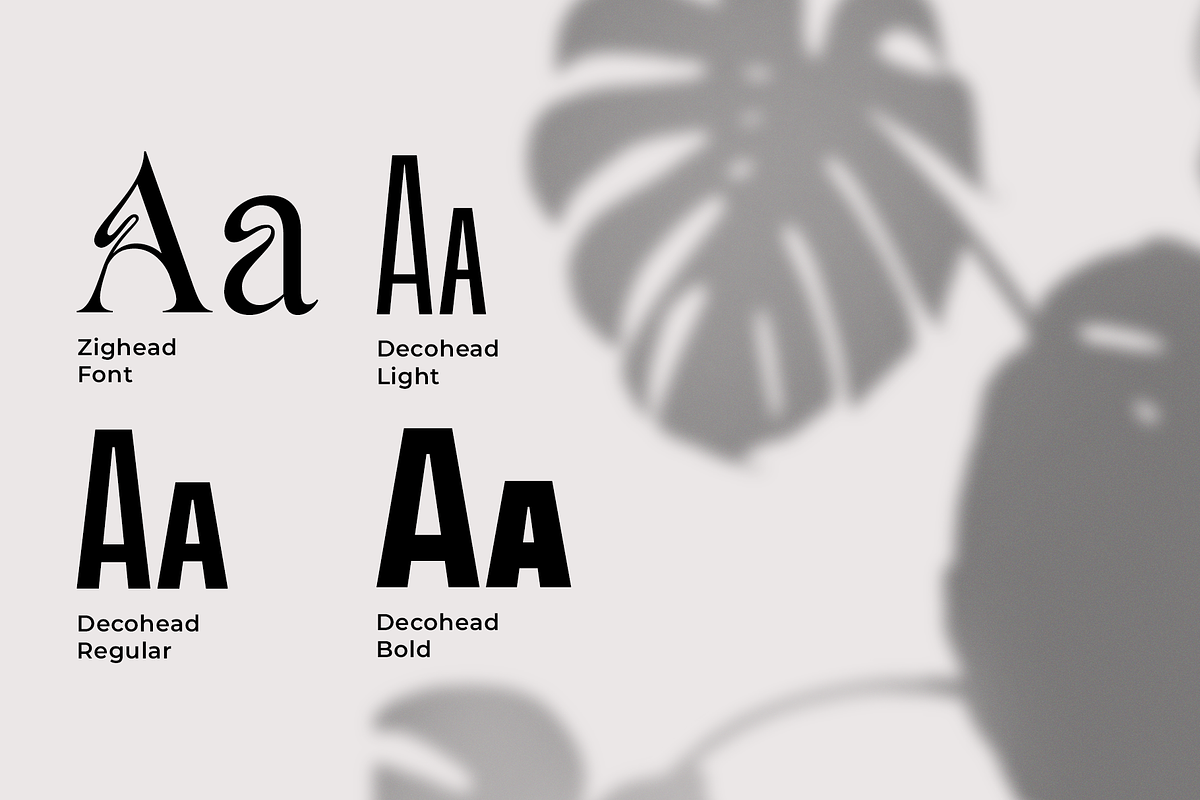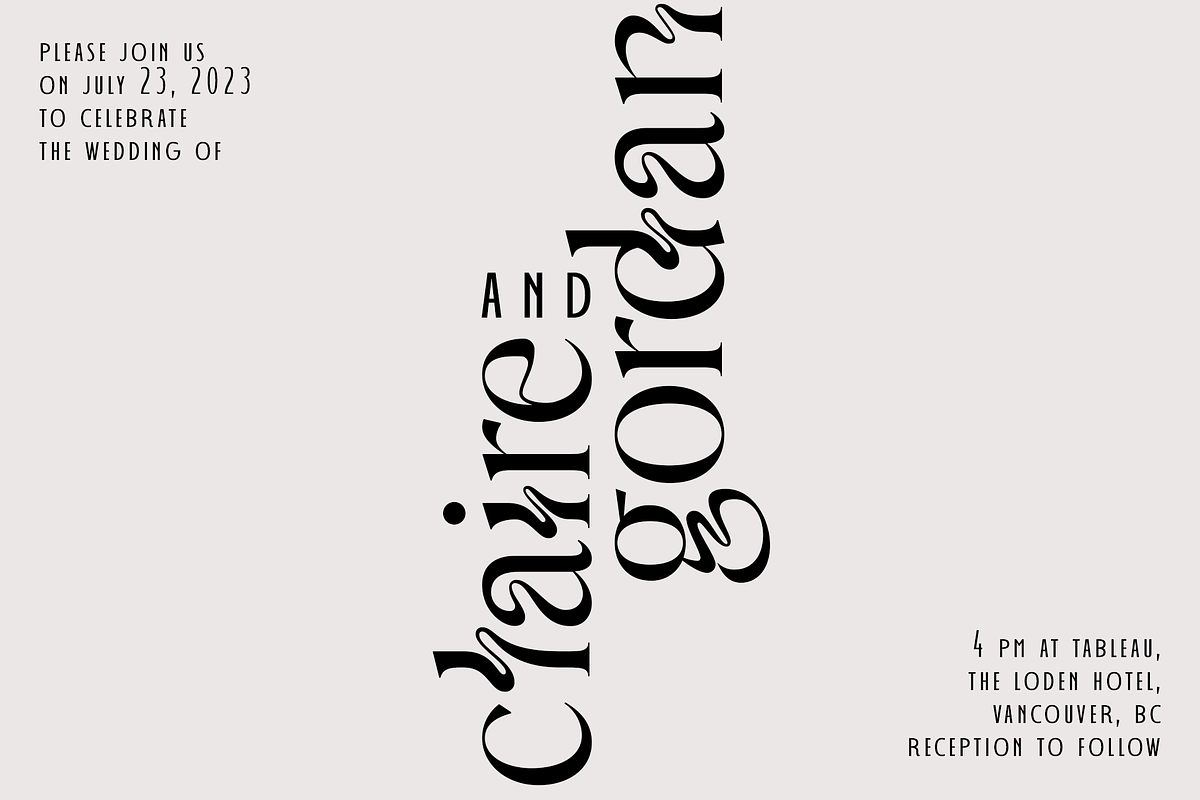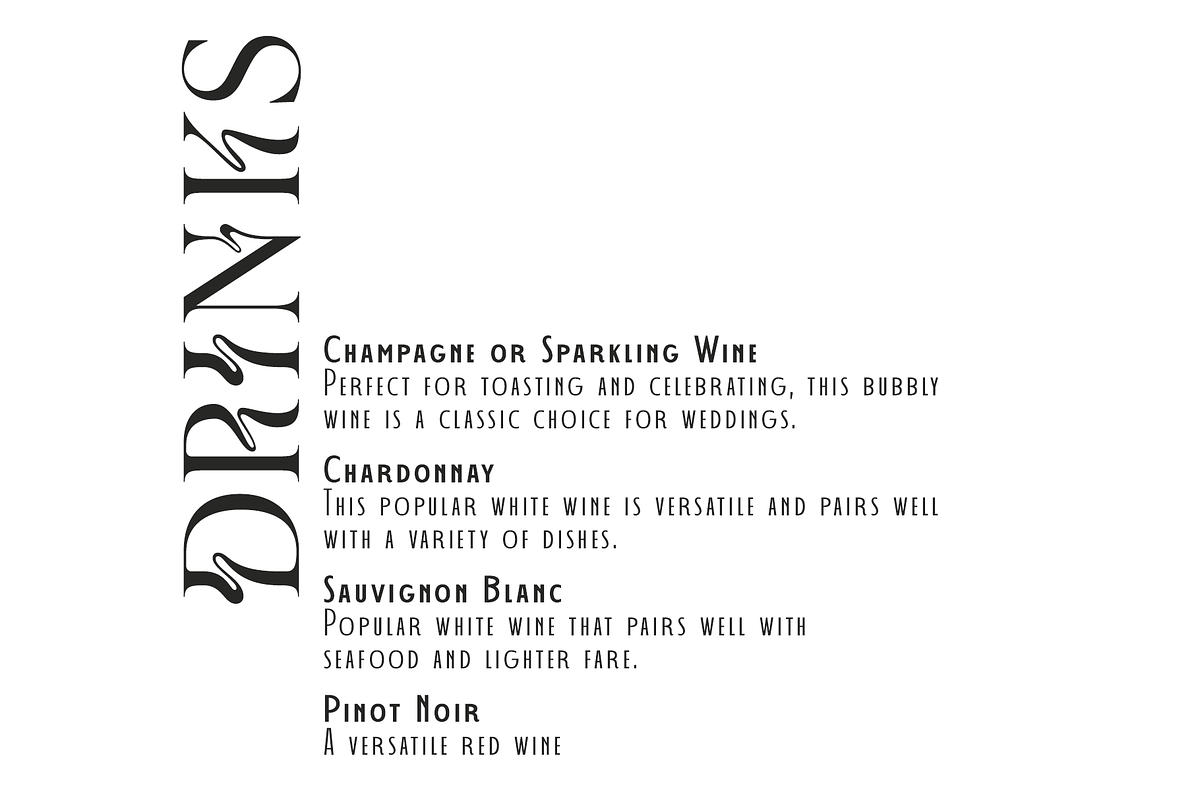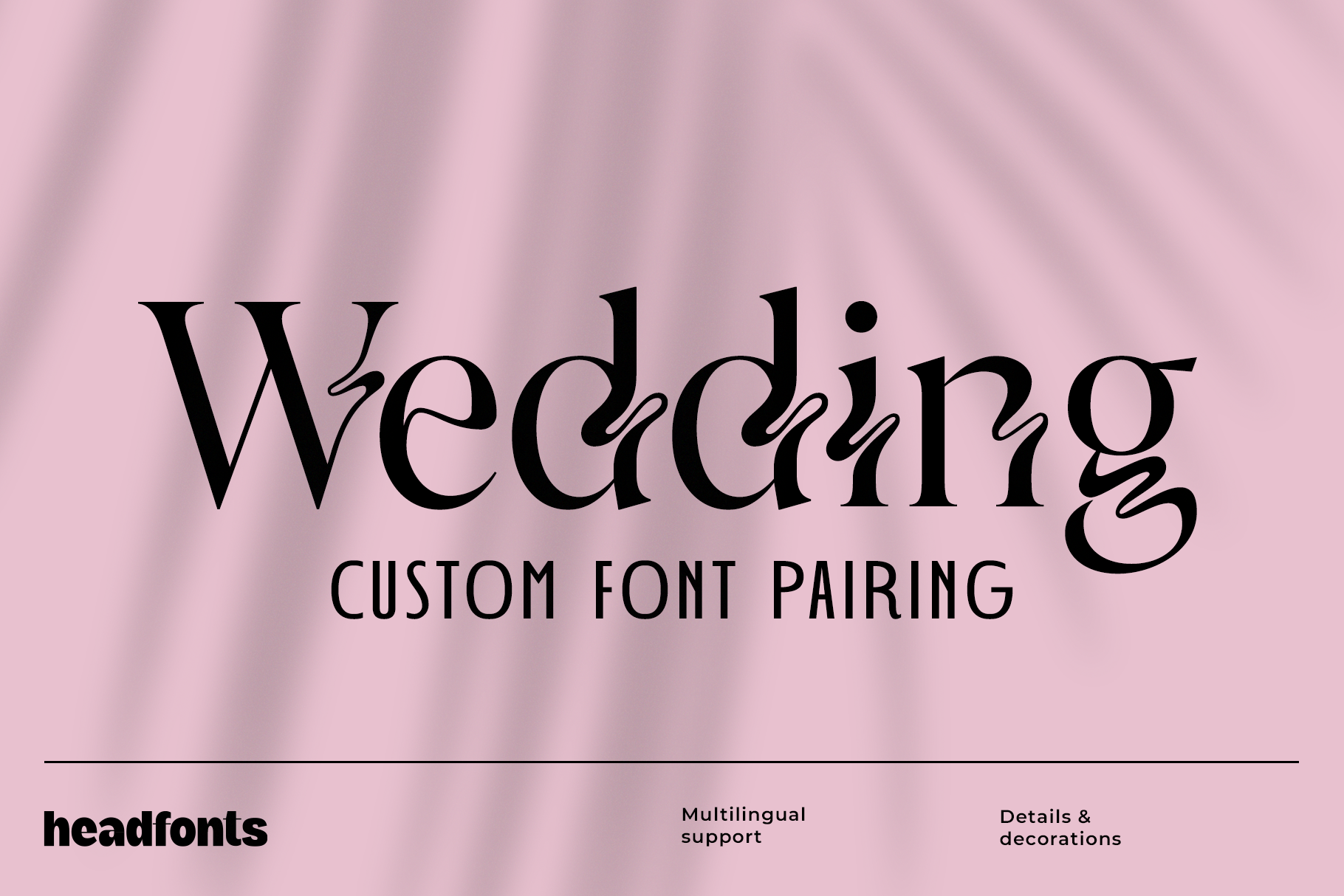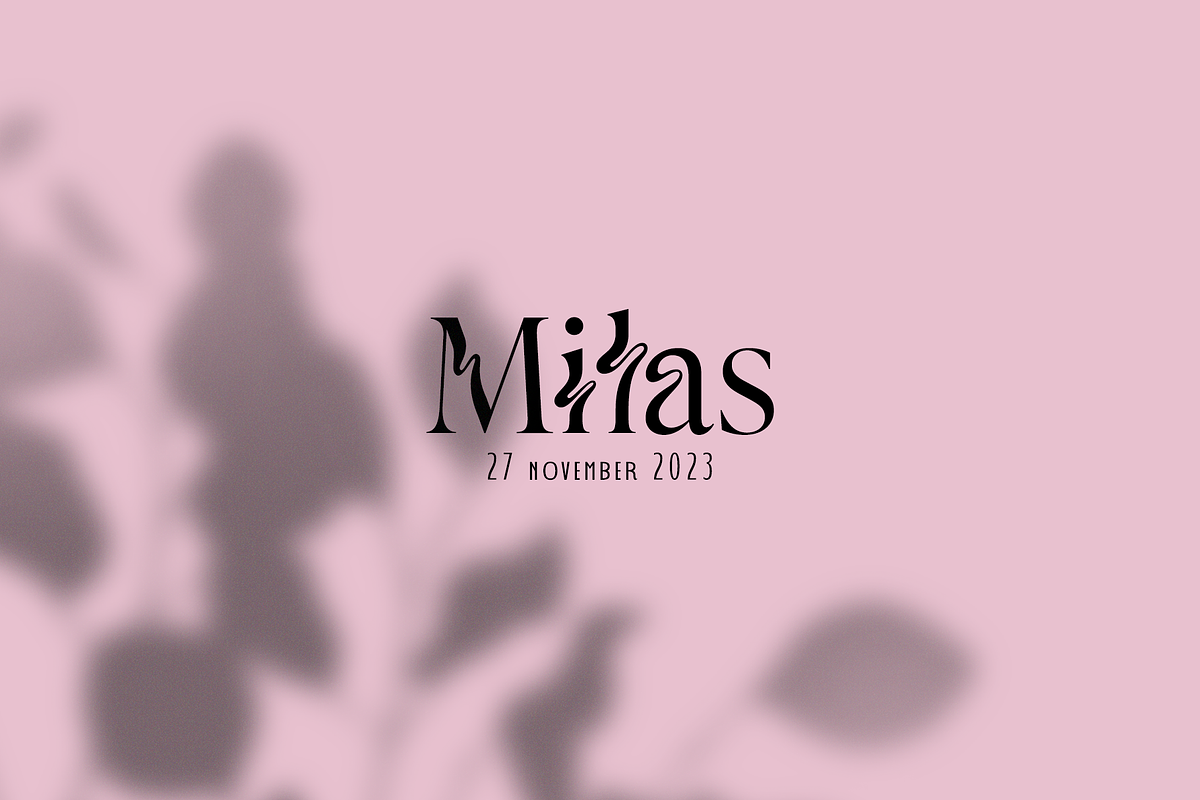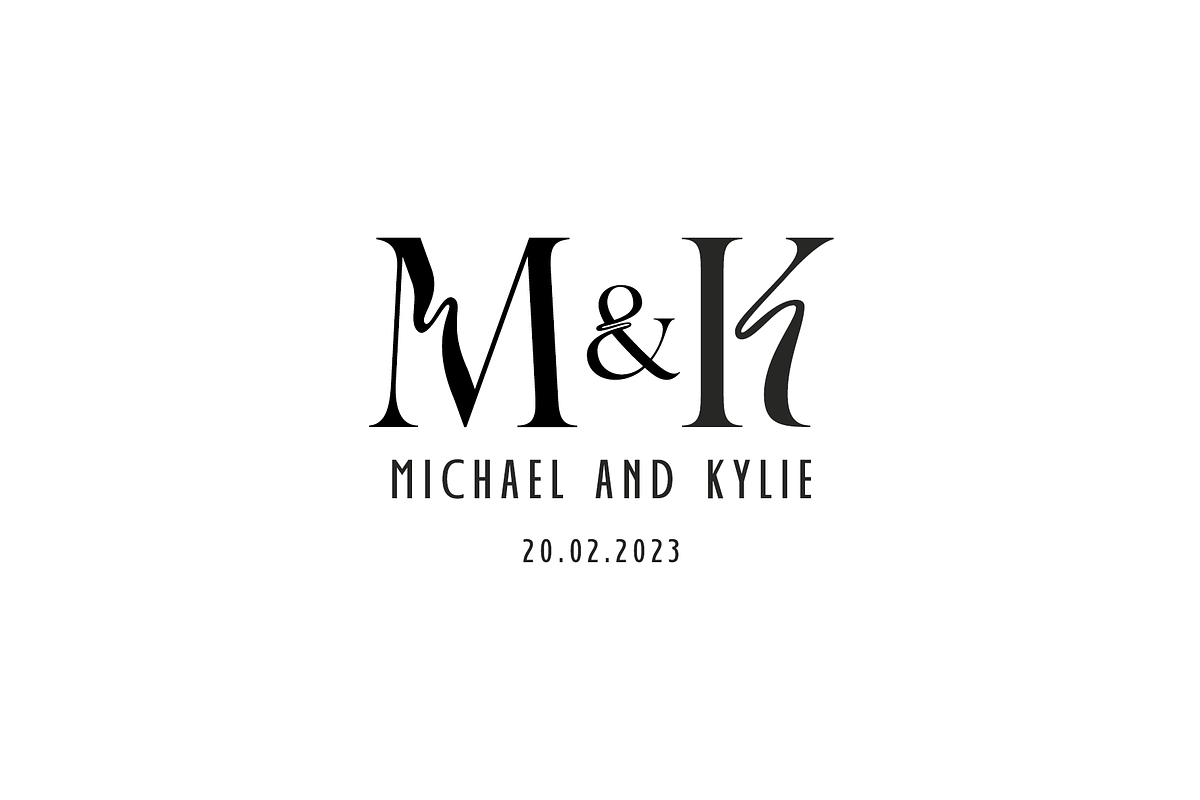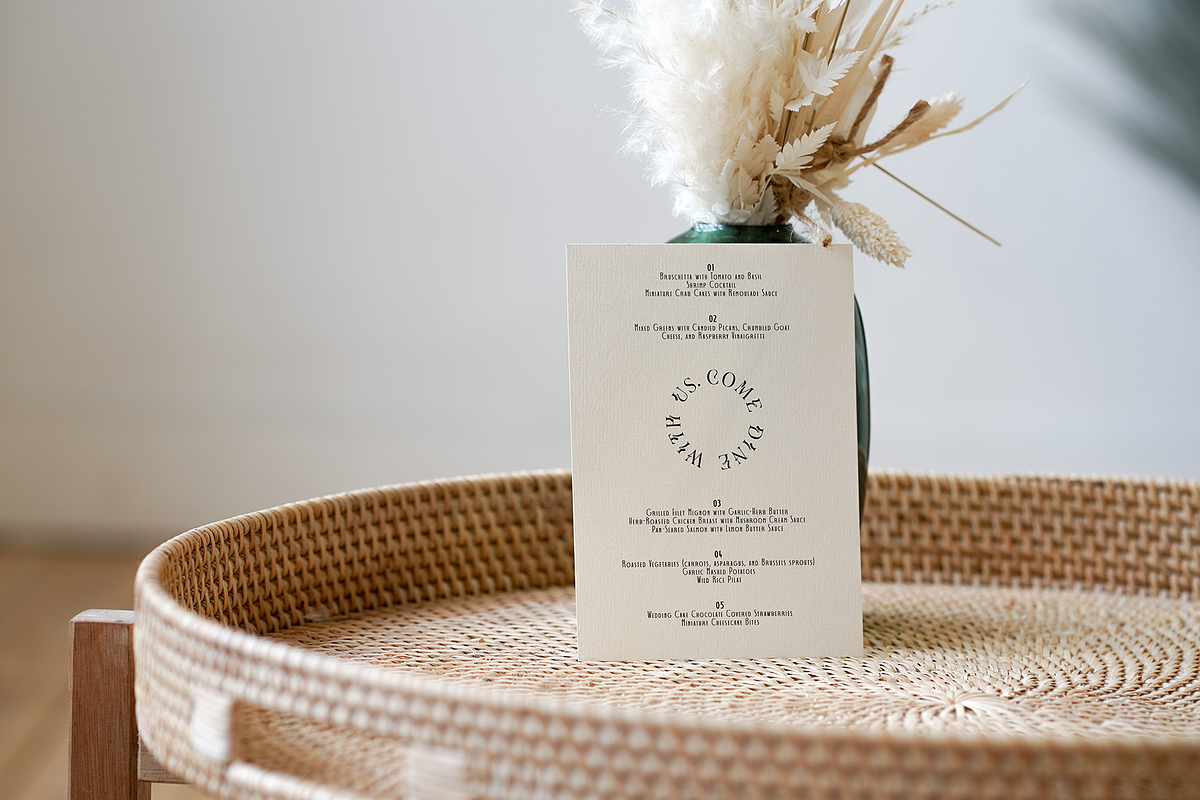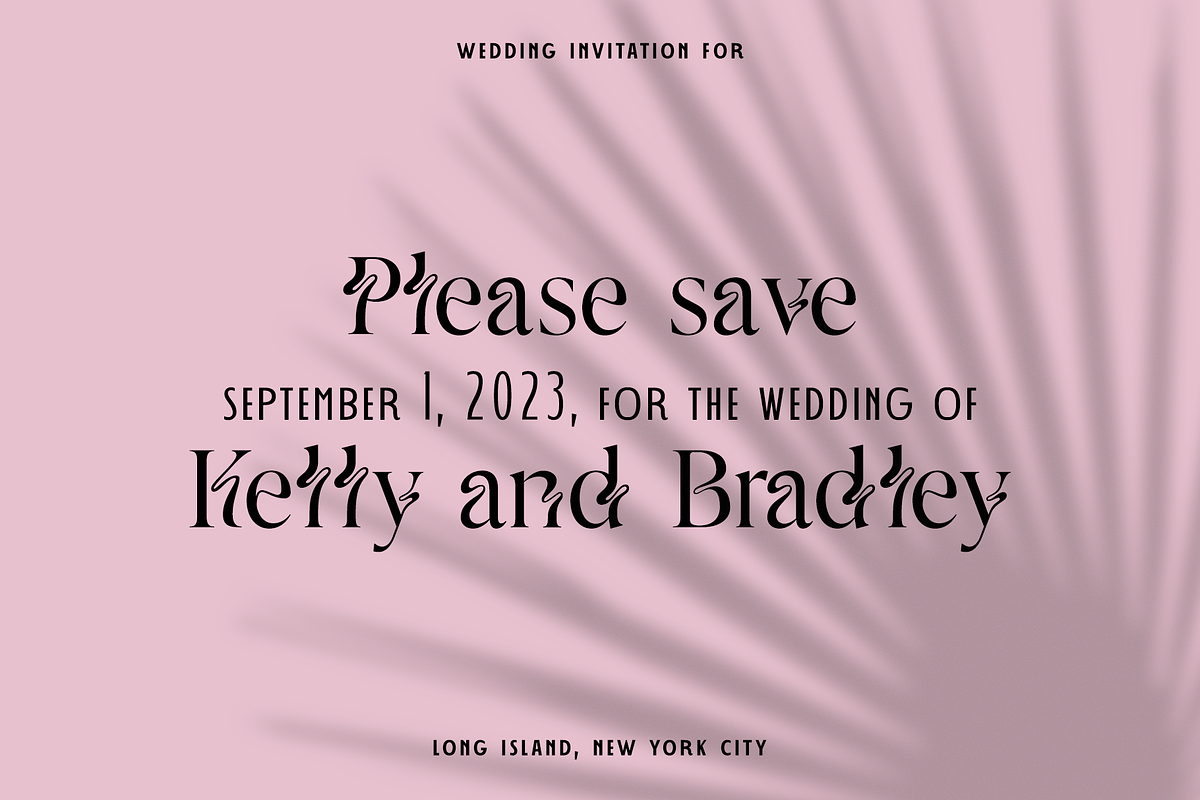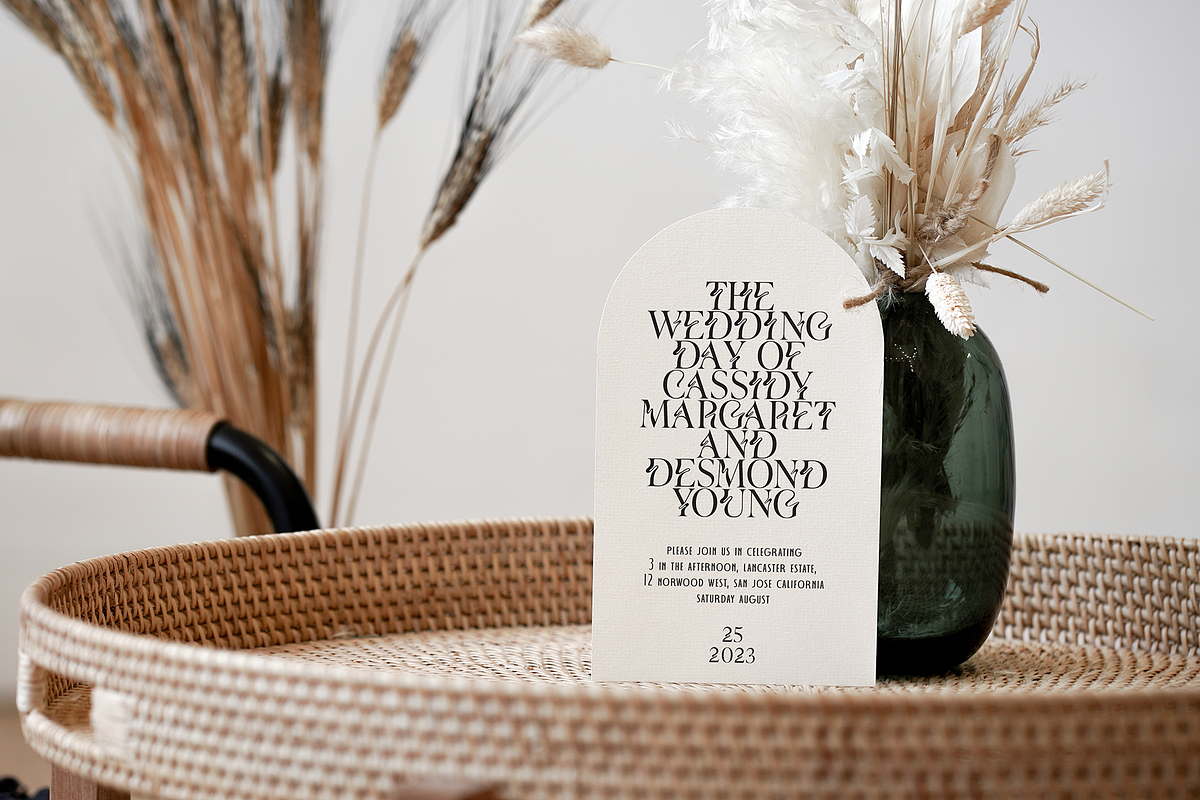
The Wedding Font Duo III
Presenting the Wedding Font Duo III, a harmonious blend of contrasting fonts designed to perfectly capture the essence of a wedding. This exquisite duo combines the ornate beauty of Zighead, a decorative font, with the refined elegance of Decohead, a simple and sophisticated sans serif. Together, they create a stunning typographic ensemble that is ideal for crafting exquisite wedding invitations and stationery. Zighead, with its intricate and graceful details, adds a touch of romantic charm to your designs. Its swirling flourishes and delicate curves evoke a sense of celebration, making it the perfect choice for adding a whimsical and joyful element to a wedding stationery. The graceful strokes of Zighead beautifully complement the ornate decorations and intricate patterns often associated with weddings. On the other hand, Decohead brings a sense of timeless sophistication to the Wedding Font Duo. Inspired by the elegance of Art Deco design, this sans serif typeface exudes a sense of refinement and class. Its clean and minimalistic letterforms provide a balanced contrast to Zighead, creating a visual harmony that is both captivating and modern. Decohead's simplicity ensures that your message remains clear and legible, while still retaining an air of elegance and style. Versatility is the key feature of this font duo, as it effortlessly adapts to a wide range of design projects that call for a touch of glamour and decorative allure. From wedding invitations to menu cards, place cards, and thank-you notes, the Wedding Font Duo will infuse your designs with a whisper of luxury and refinement.